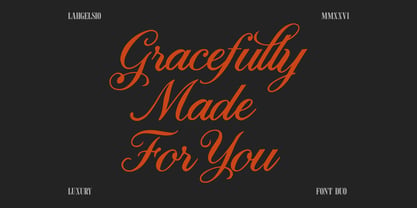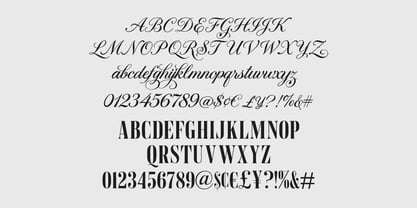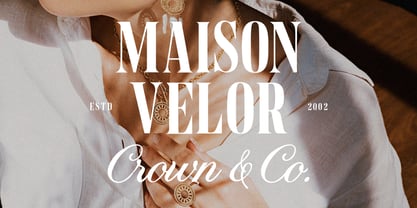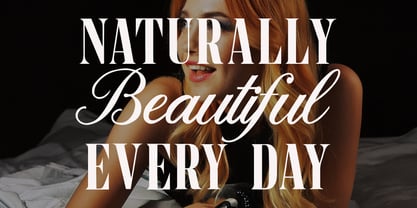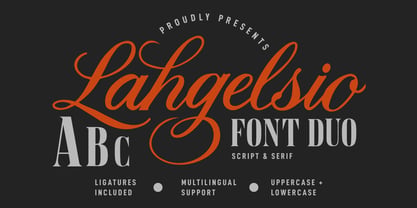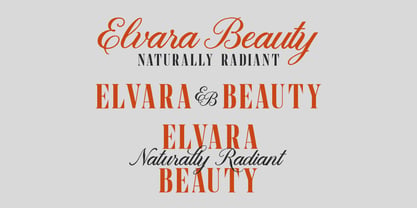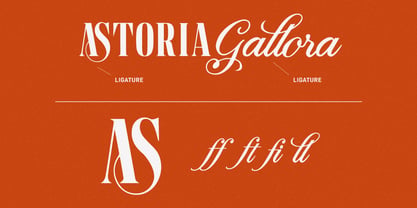
Lahgelsio Script
by Maulana Creative
The Lahgelsio Script Font Family was designed by Gilang Maulana and published by Maulana Creative. Lahgelsio Script contains 2 styles and family package options. More about this family
Lahgelsio is a typography pairing that combines a high-contrast serif typeface with a graceful, flowing script style. Designed with clean ligatures and refined swoops, this font duo provides visual harmony and contrast for sophisticated visual layouts. The serif weight offers tall, narrow letterforms with sharp contrast, while the script variant brings fluidity through organic curves and decorative swashes.
This font duo is ideal for high-end branding, luxury cosmetics packaging, wedding stationery, editorial design, and identity systems. Including uppercase and lowercase sets, numerals, symbols, and multilingual support, Lahgelsio delivers maximum versatility for visual hierarchy in display titles, logos, quotes, and branding materials.
Designers: Gilang Maulana
Foundry: Maulana Creative